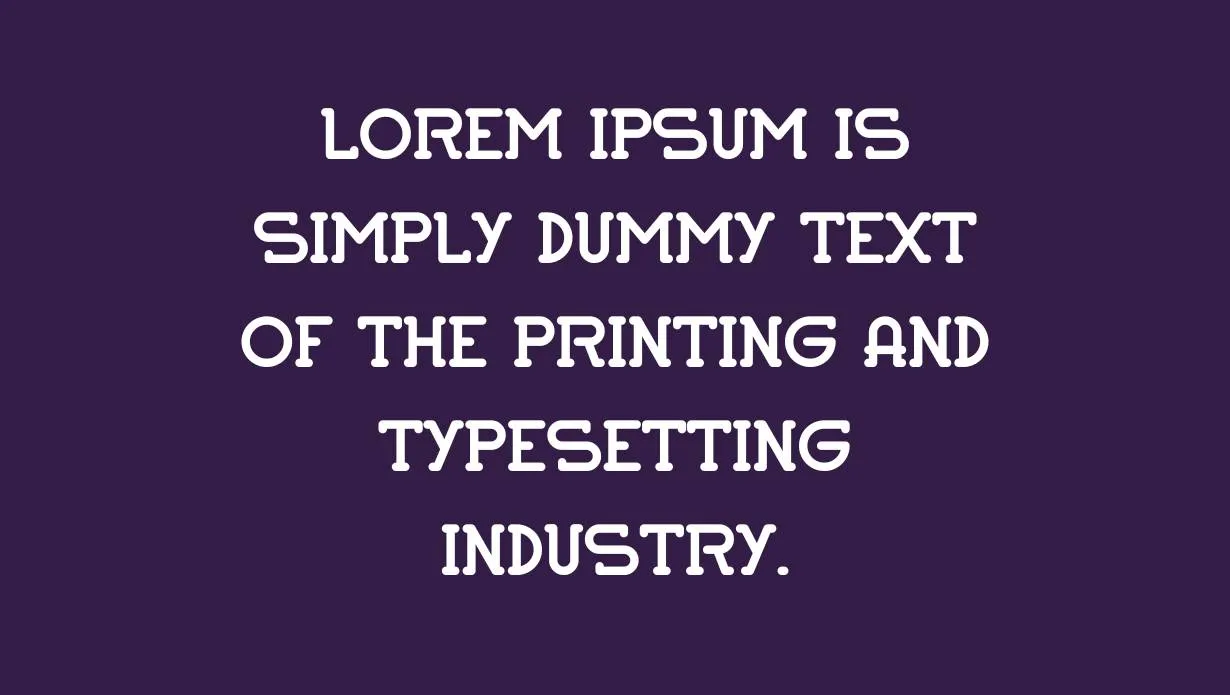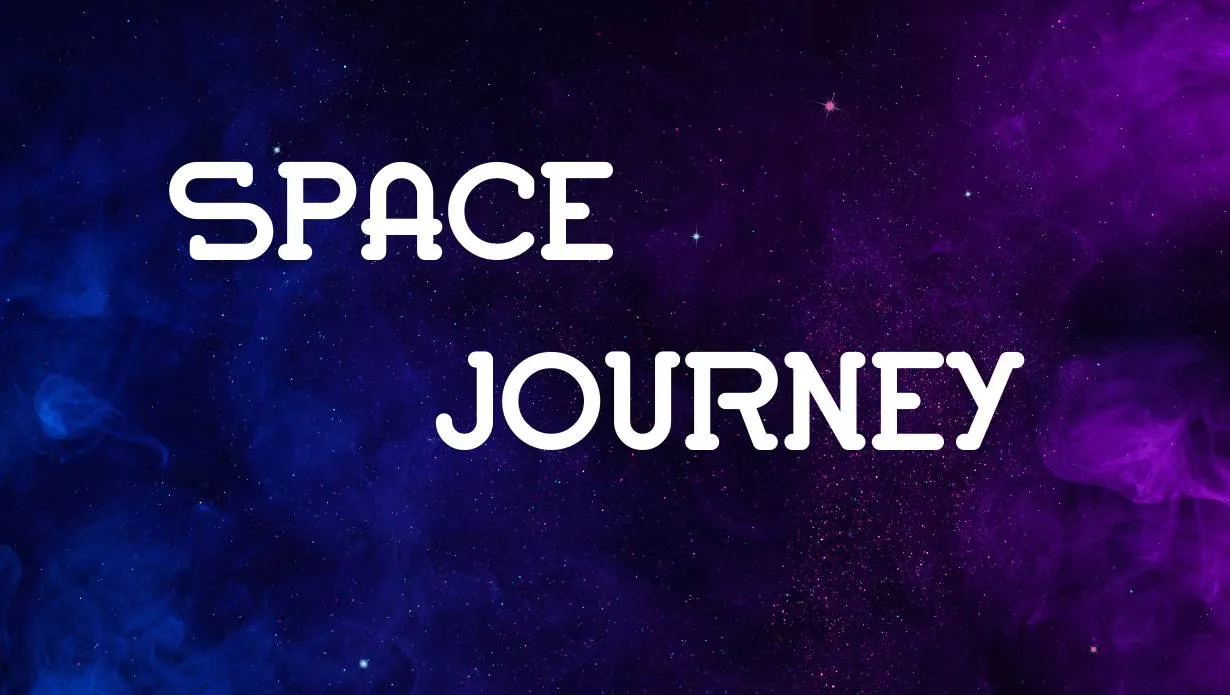
Cartos Font is nicely created by Tokokoo Studio. The typeface has unique and attractive design features which play an important role to create fun designs. This is an elegant Fancy text design.
Cartos Font Family